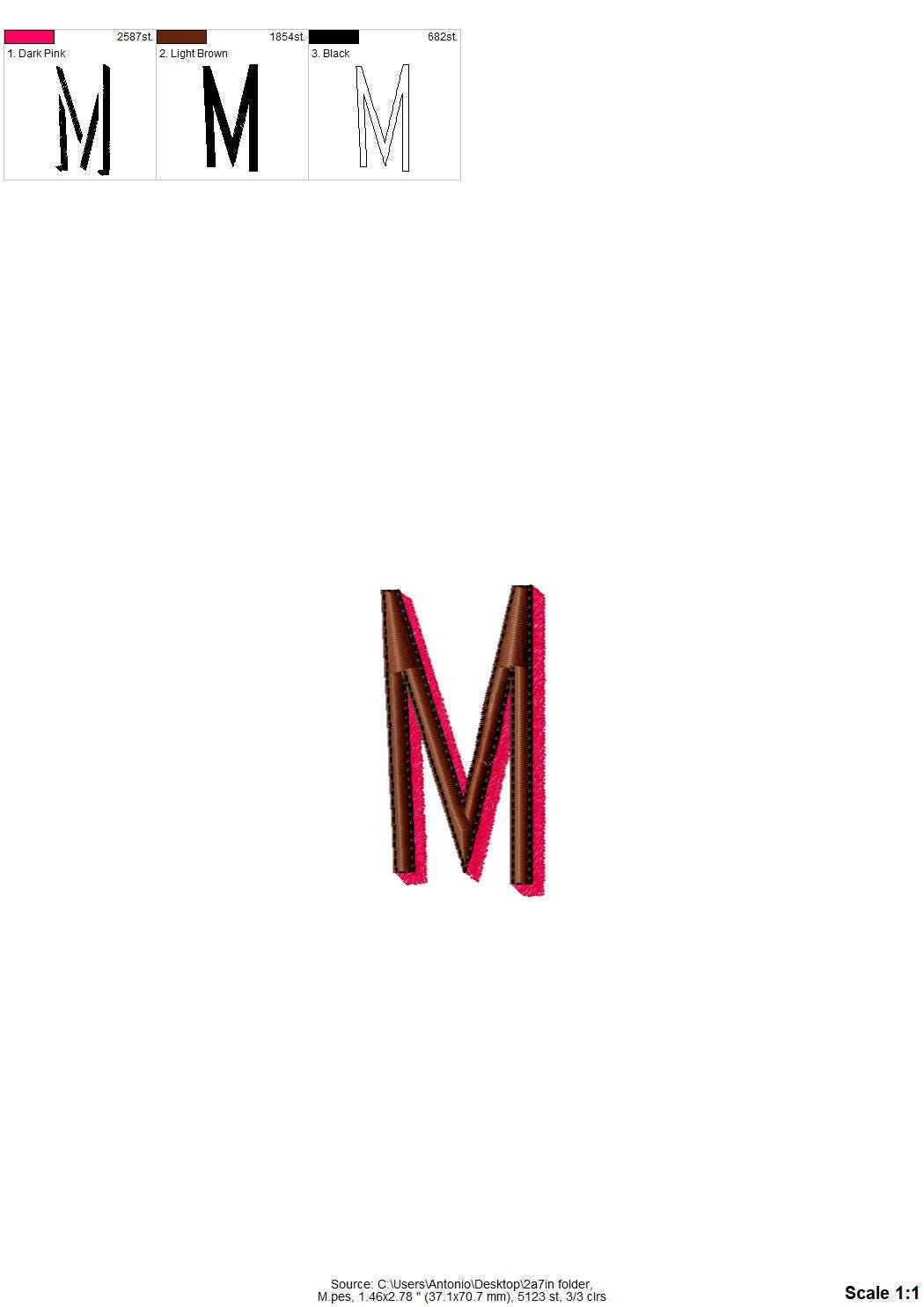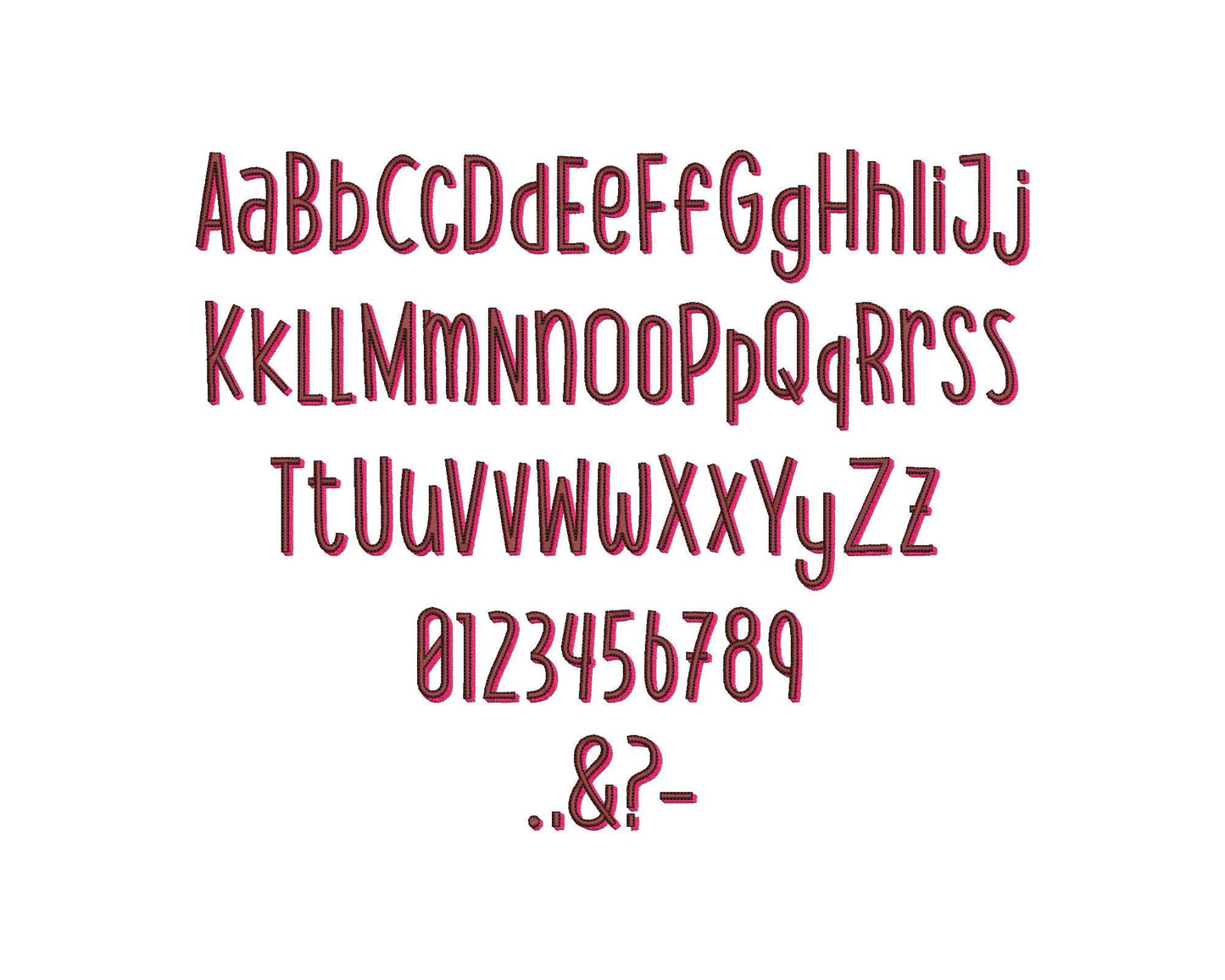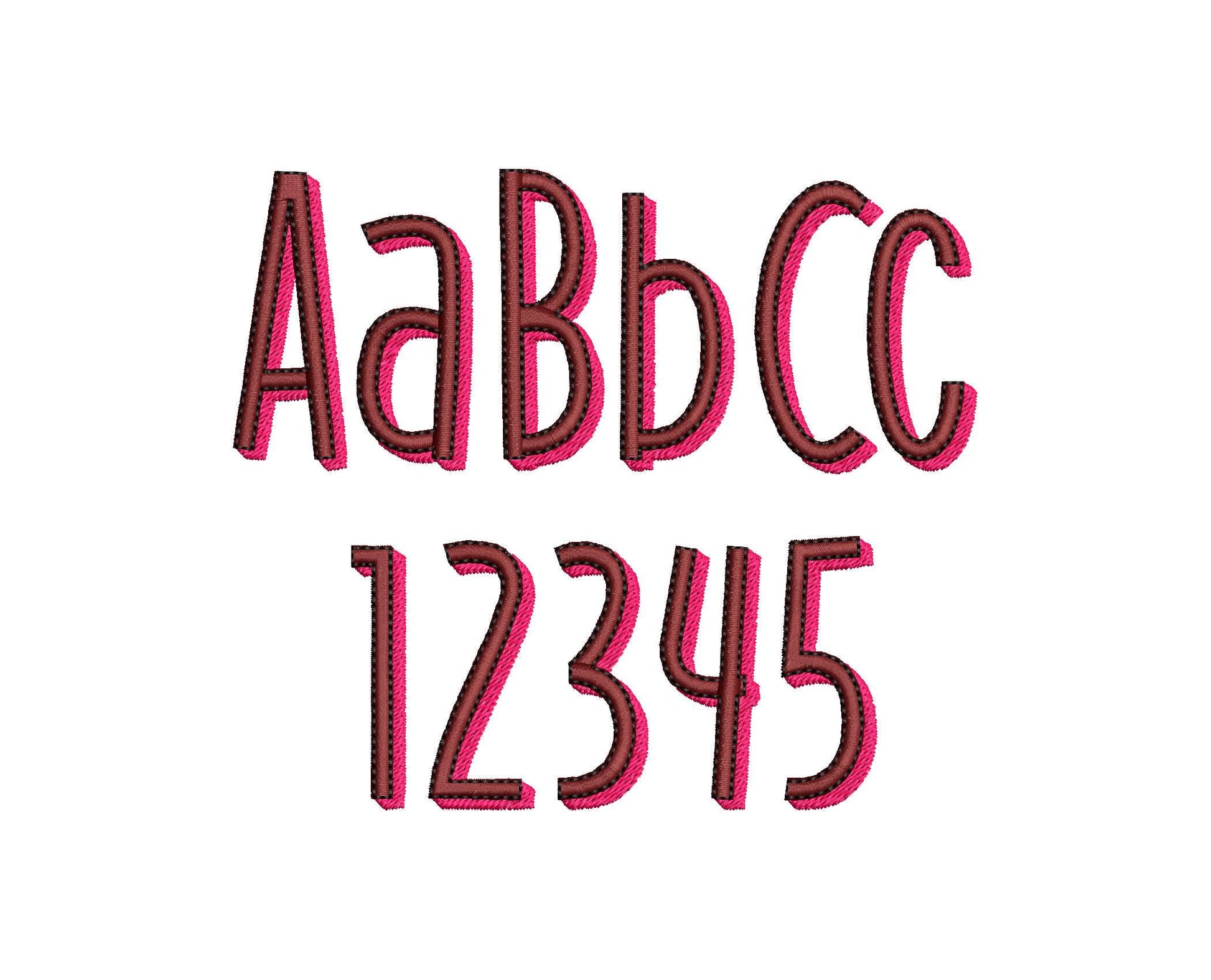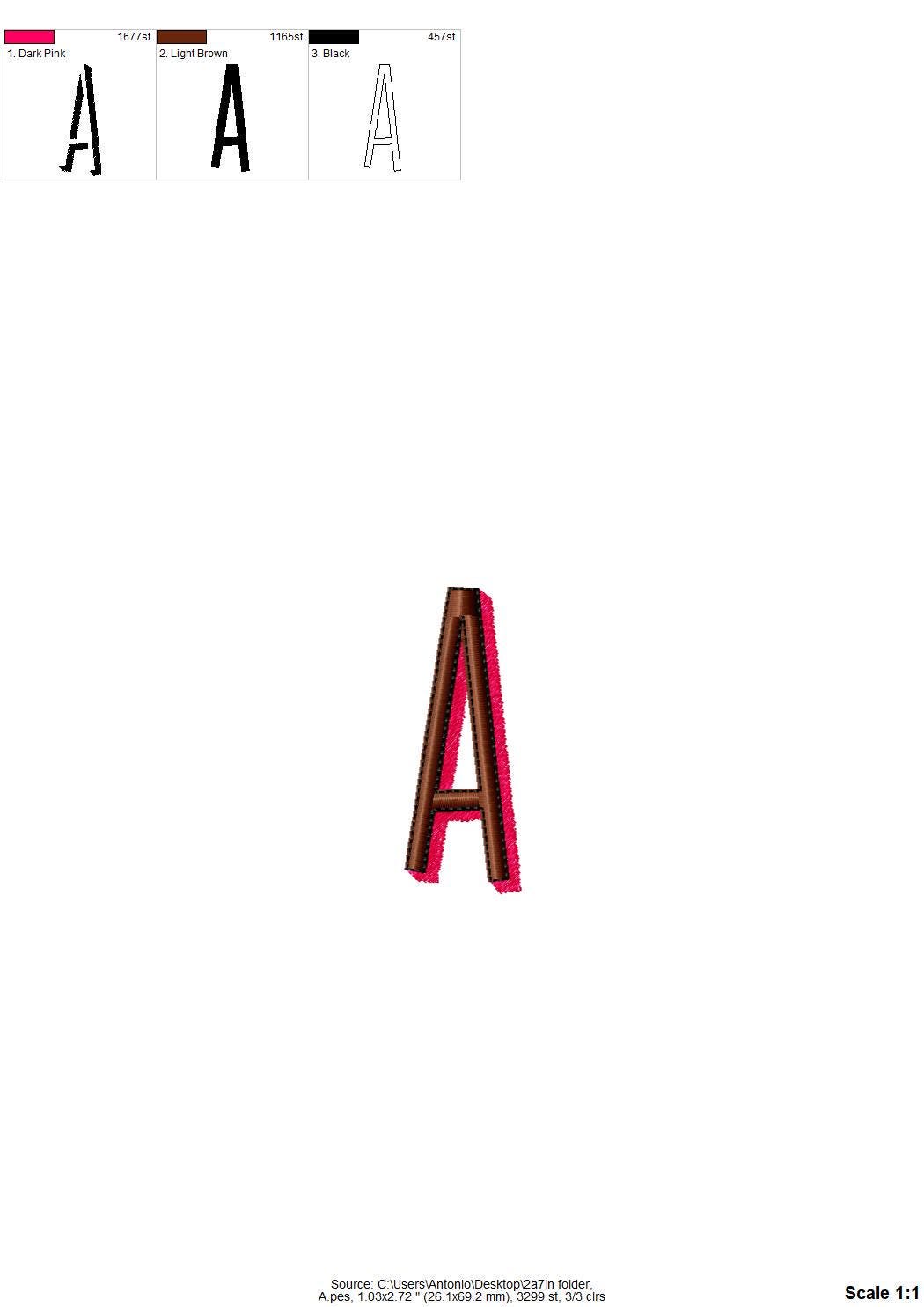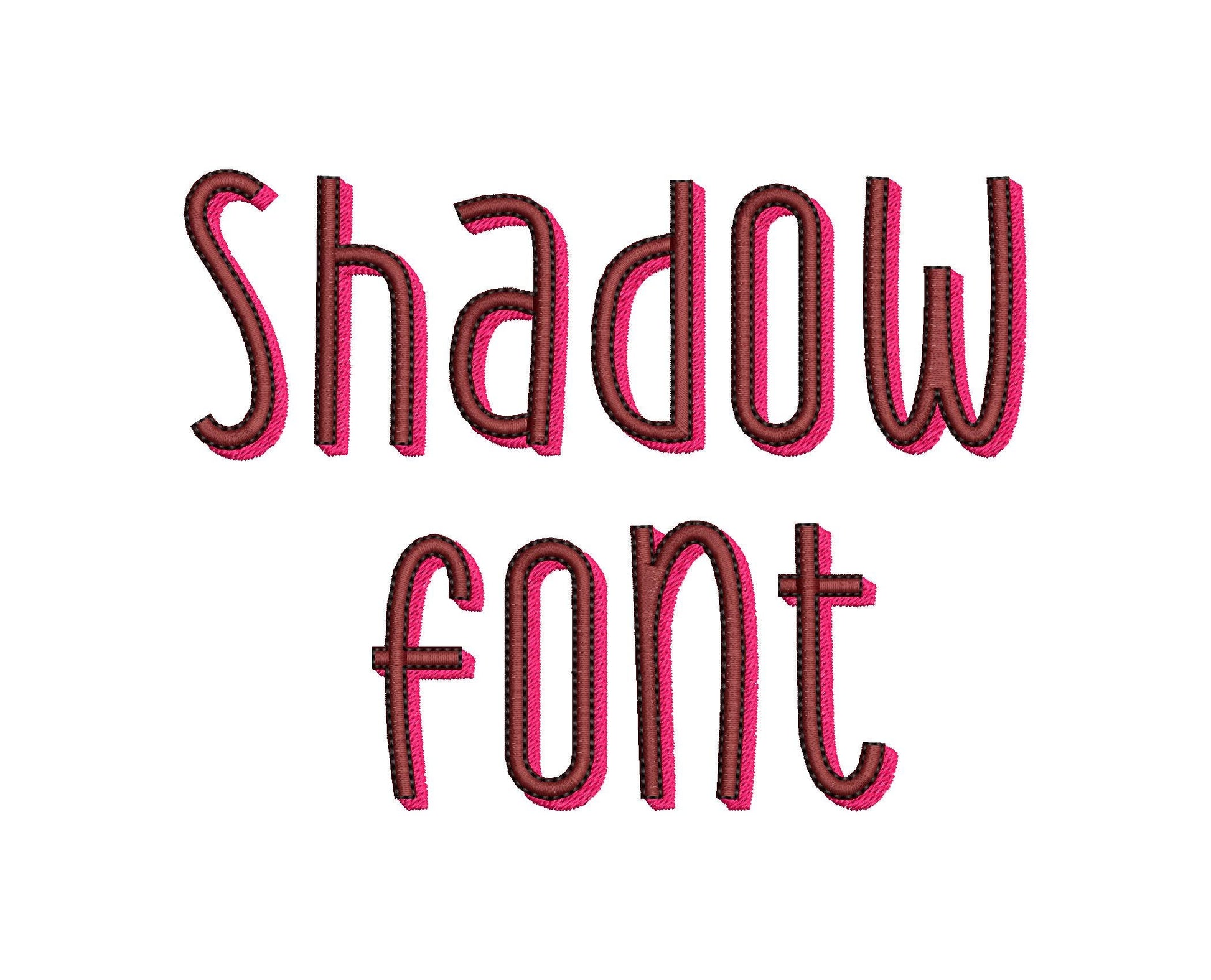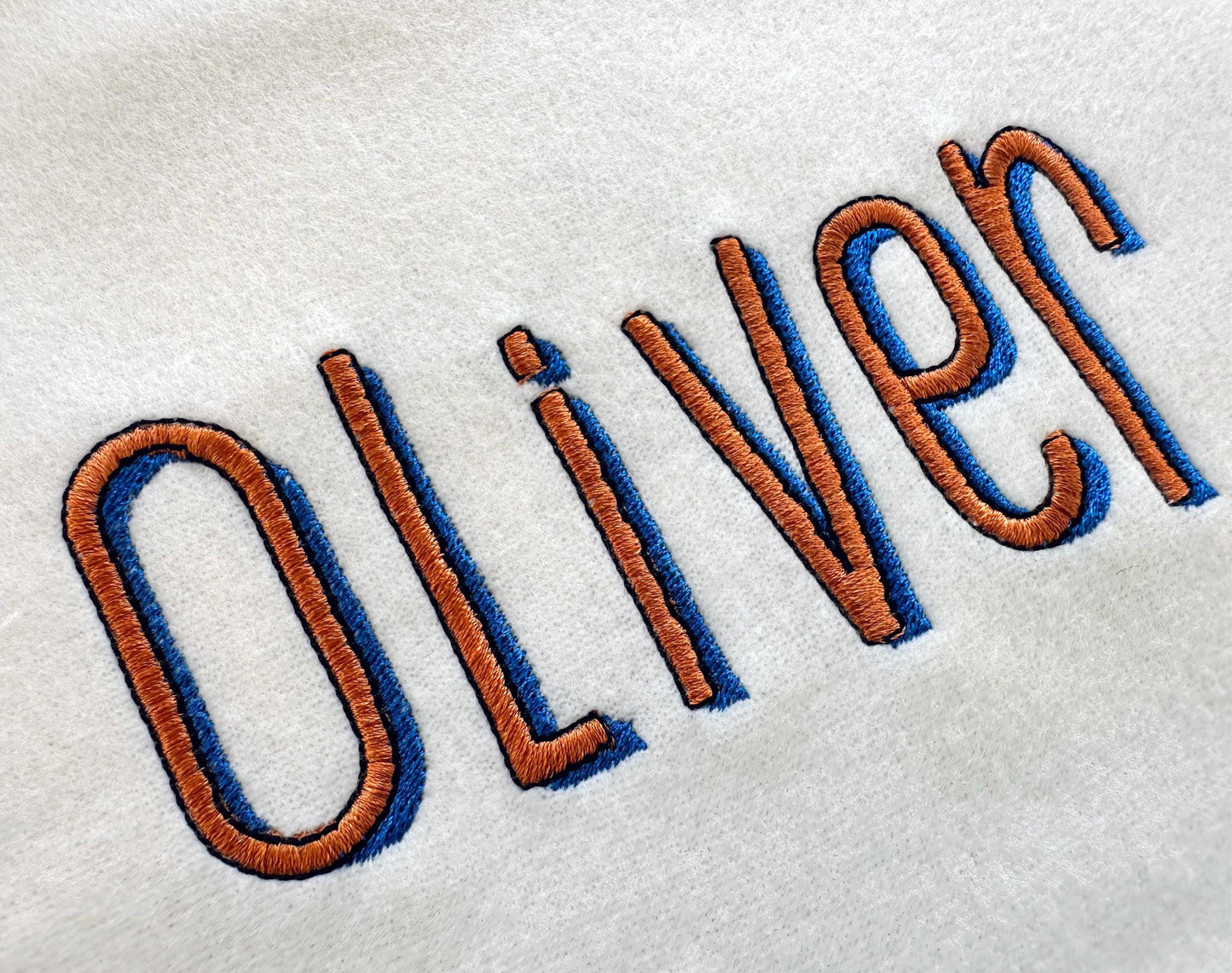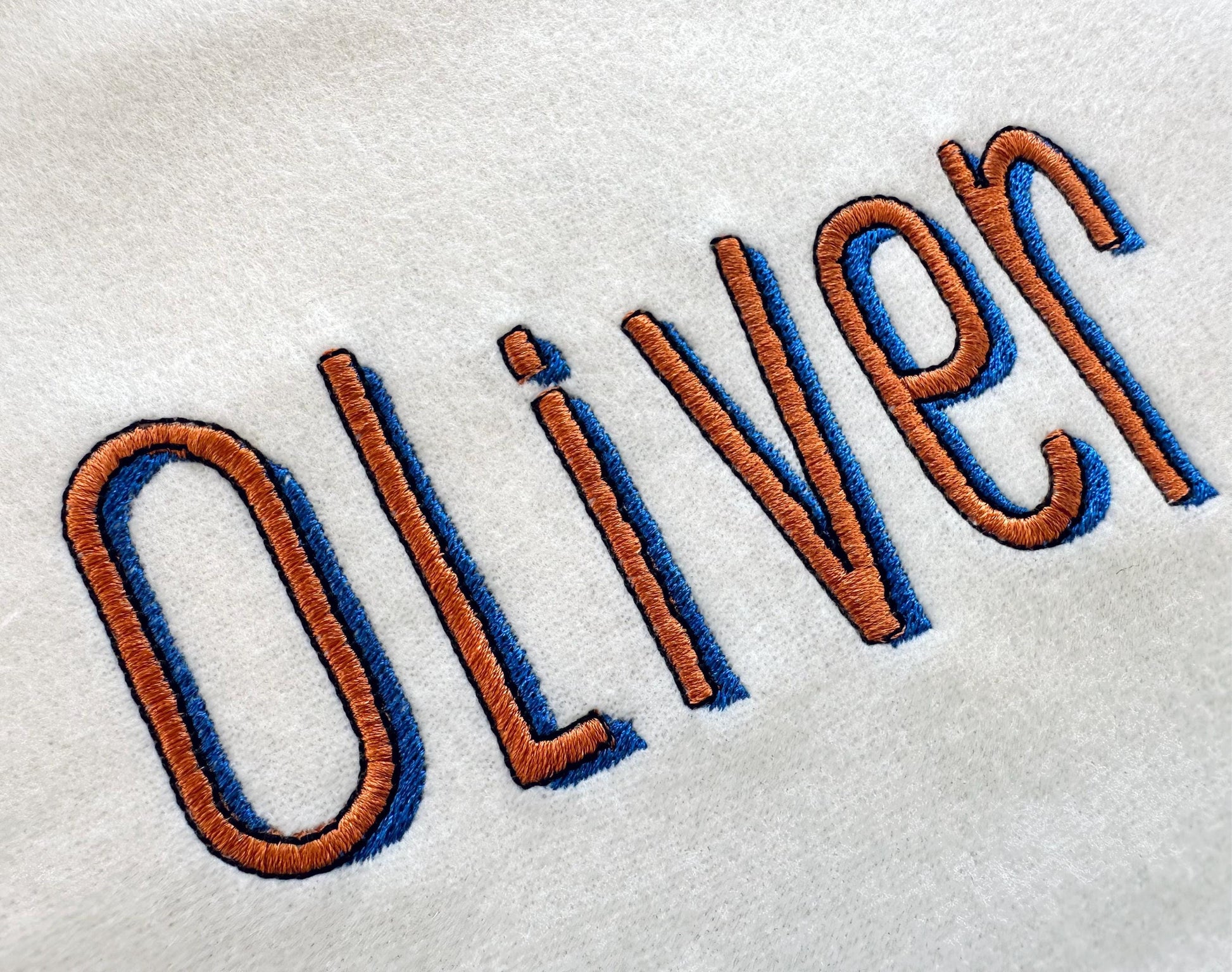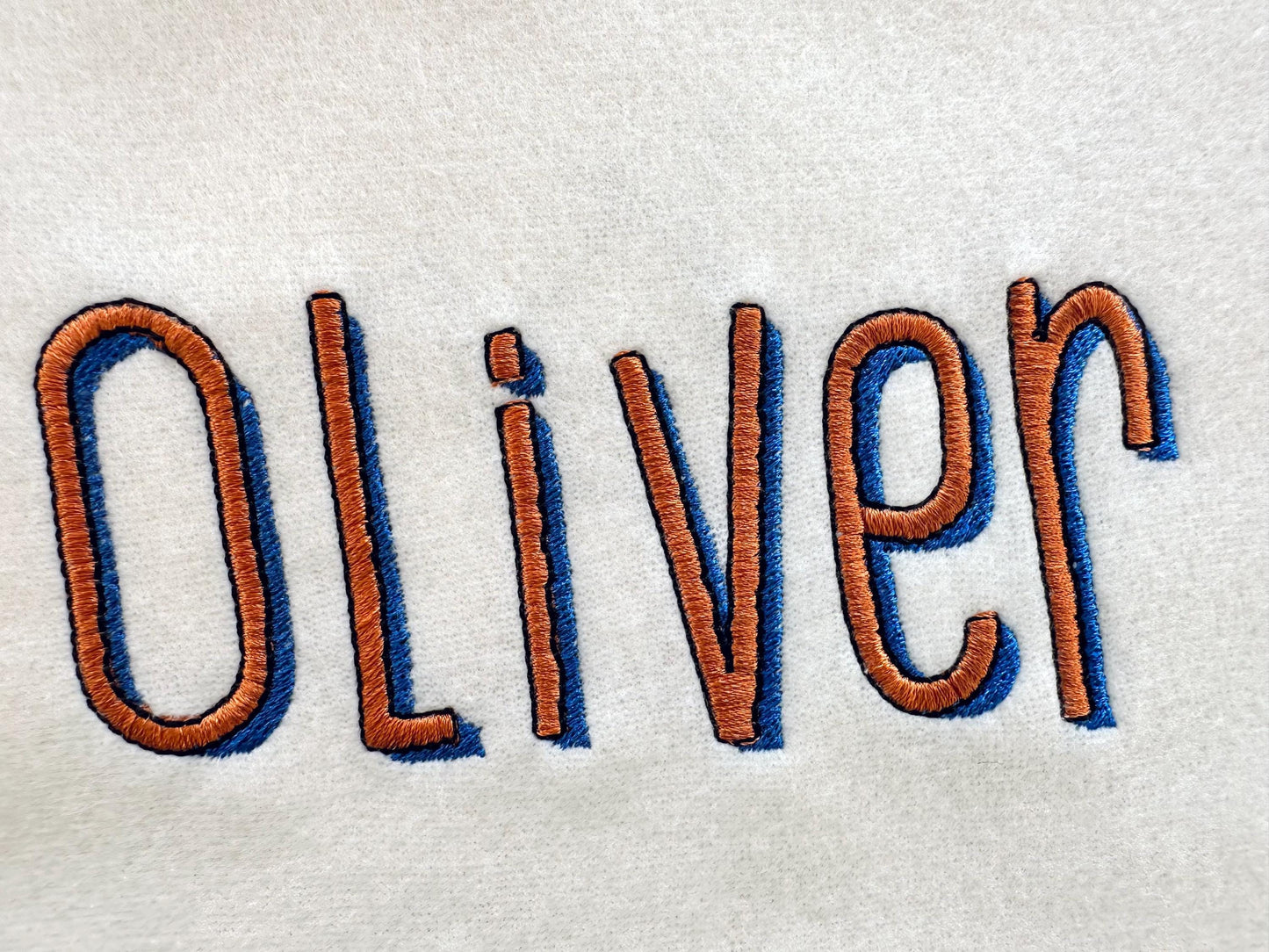
Narrow Tall Shadow Font
Or click to open the linkA narrow, tall shadow font in three colors: satin stitch letters with a fill stitch shadow and an outline. Bold for names, monograms and shirts.
Uppercase and lowercase letters, numbers 0 to 9 and punctuation, in seven sizes: 1.2, 1.5, 1.8, 2.3, 2.7, 3.3 and 4 inches.
- Narrow tall three-color shadow font
- Uppercase and lowercase letters, numbers 0-9, punctuation
- 7 sizes, 1.2 to 4 in